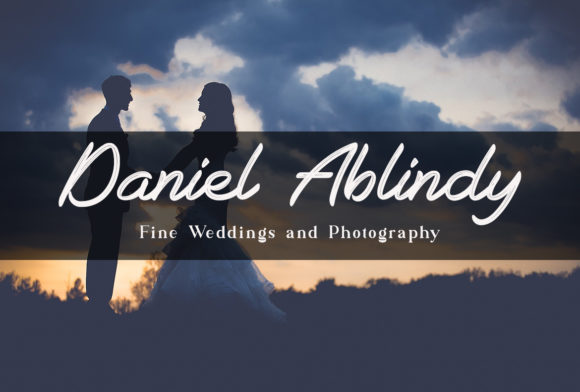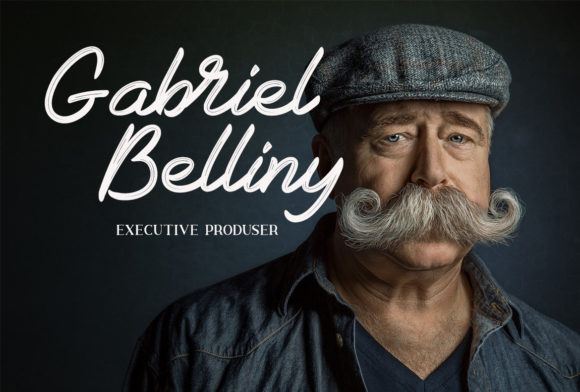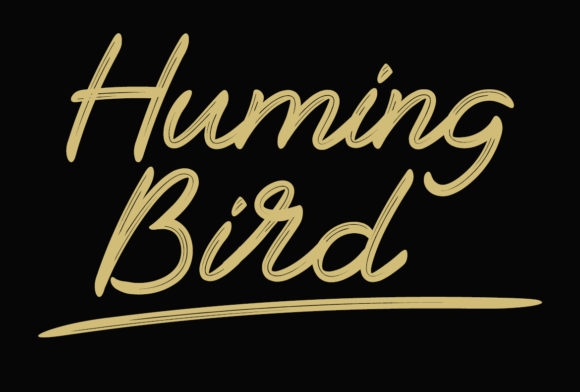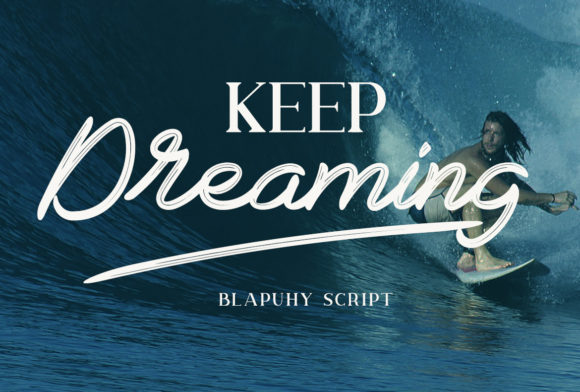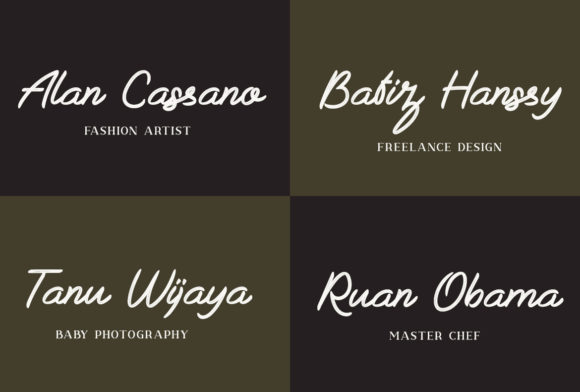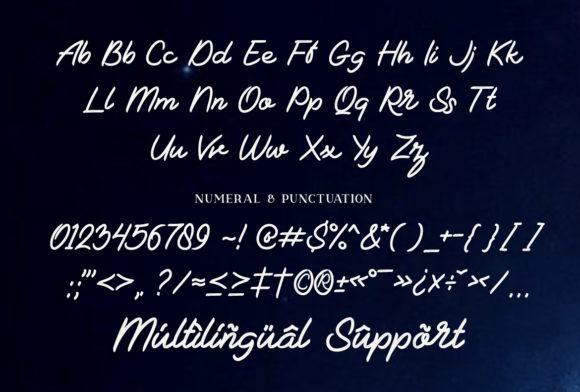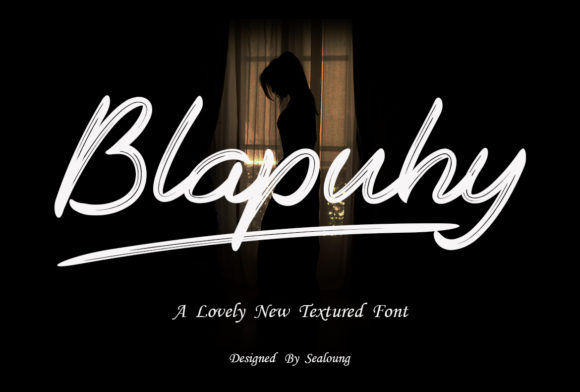
Introducing Blapuhy Font: The Perfect Handwritten Touch for Your Designs
Are you looking for a font that adds a personal touch to your designs? Look no further than Blapuhy Font, a lovely handwritten font designed with the help of a brush pen. With its authentic feel and unique charm, Blapuhy is perfect for creating stunning wedding invitations, beautiful stationary art, eye-catching social media posts, and adorable greeting cards.
The Story Behind Blapuhy Font
Blapuhy Font is a carefully crafted handwritten font that is designed to bring a touch of warmth and personality to your designs. Created with the help of a brush pen, this font boasts a distinctive, organic feel that is sure to capture the hearts of designers and crafters alike. Whether you’re looking to add a personal touch to your wedding invitations, create beautiful stationary art, or simply want to add some flair to your social media posts, Blapuhy Font is the perfect choice.
What Makes Blapuhy Font So Special?
So, what sets Blapuhy Font apart from other fonts out there? Here are just a few things that make it so special:
- Authentic feel: Blapuhy Font has a genuine, handwritten feel that is sure to add a personal touch to your designs.
- Unique character: With its distinctive brush pen strokes and imperfections, Blapuhy Font has a unique character that is sure to stand out.
- Versatile: Whether you’re designing wedding invitations, stationary art, social media posts, or greeting cards, Blapuhy Font is the perfect choice.
- Easily readable: Despite its handwritten nature, Blapuhy Font is surprisingly easy to read, making it perfect for body text and headlines alike.
Using Blapuhy Font in Your Designs
So, how can you use Blapuhy Font in your designs? Here are a few ideas to get you started:
- Wedding invitations: Add a touch of romance and whimsy to your wedding invitations with Blapuhy Font.
- Stationary art: Create beautiful stationary art, such as journals, planners, and notebooks, with Blapuhy Font.
- Social media posts: Add some personality to your social media posts with Blapuhy Font, perfect for creating eye-catching graphics and quotes.
- Greeting cards: Create adorable greeting cards for special occasions, such as birthdays, holidays, and anniversaries, with Blapuhy Font.
Tips and Tricks for Working with Blapuhy Font
Here are a few tips and tricks for working with Blapuhy Font:
- Experiment with colors: Blapuhy Font looks great in a variety of colors, so don’t be afraid to experiment and find the perfect hue for your design.
- Mix and match: Try pairing Blapuhy Font with other fonts to create a unique and interesting look.
- Play with sizes: Blapuhy Font looks great in a range of sizes, from large headlines to smaller body text.
In conclusion, Blapuhy Font is a beautiful handwritten font that is perfect for adding a personal touch to your designs. With its authentic feel, unique character, and versatility, Blapuhy Font is sure to become a favorite among designers and crafters alike. So why not give it a try and see what amazing designs you can create?